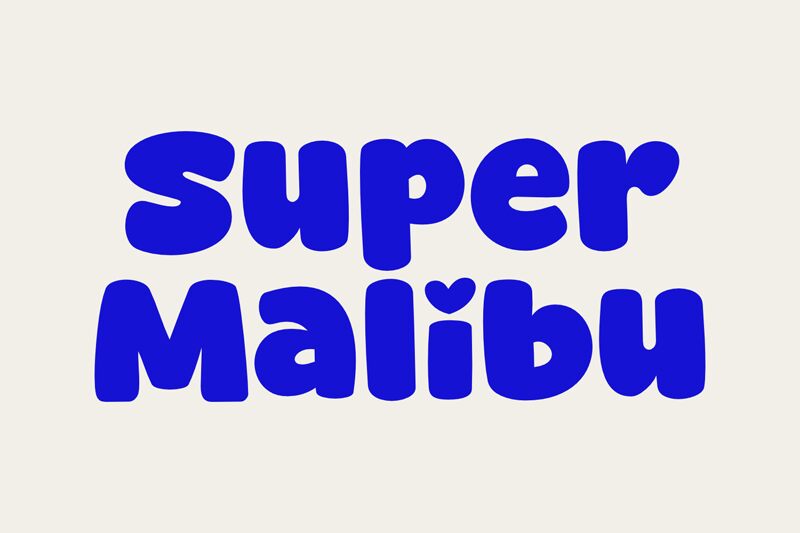
Super Malibu
Super Malibu font by fsuarez913 is a free display cartoon-font full of lively and casual character. The thick bold letters of this retro font appear quite friendly and attractive to readers. Super Malibu’s cheerful style grabs immediate attention especially in big font sizes.
Curved shapes dominate the construction of these playful letterings. Use it abundantly in posters, headlines, t-shirts, children-oriented designs, food & drink branding, website banners, online ads, infographics or any other use case you have in mind.